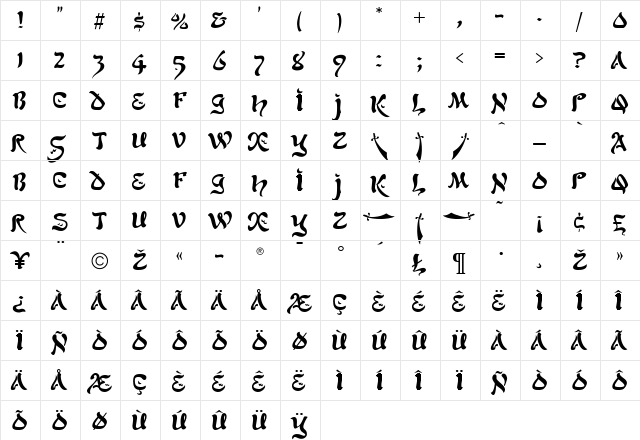
Scimitar Regular
| Foundry | Digitized by Dan X. Solo. Software \ by Dover Publications, Inc |
Design Context for Scimitar Typeface
Scimitar is a composed and adaptable typeface that performs quietly and consistently across a wide range of design contexts.